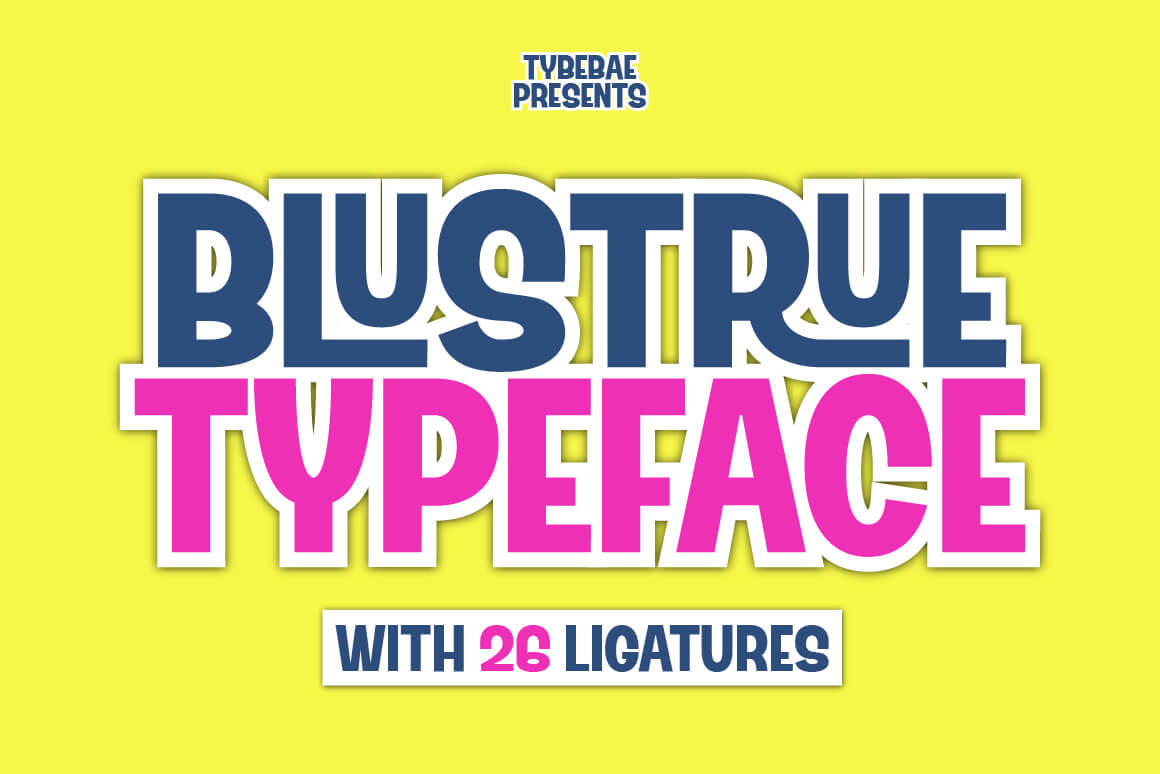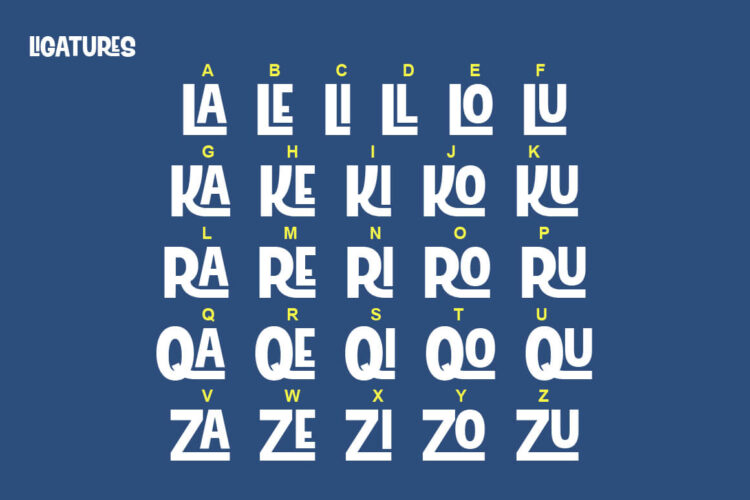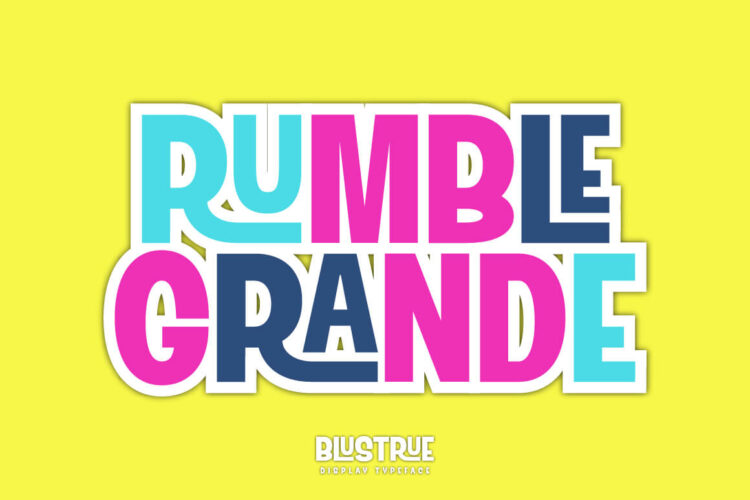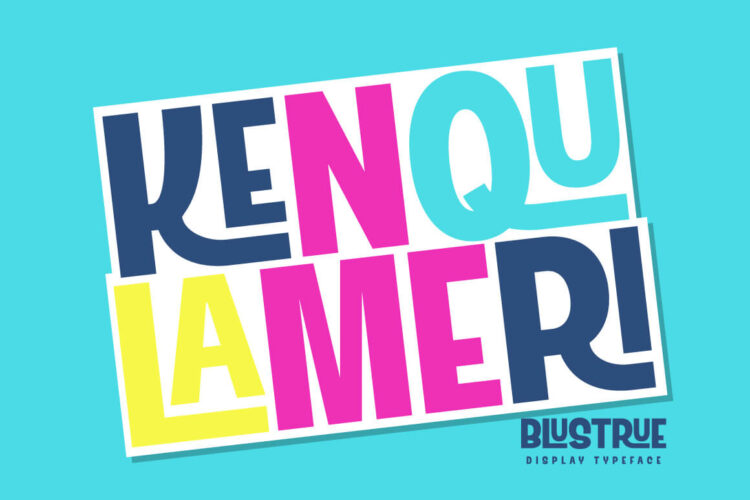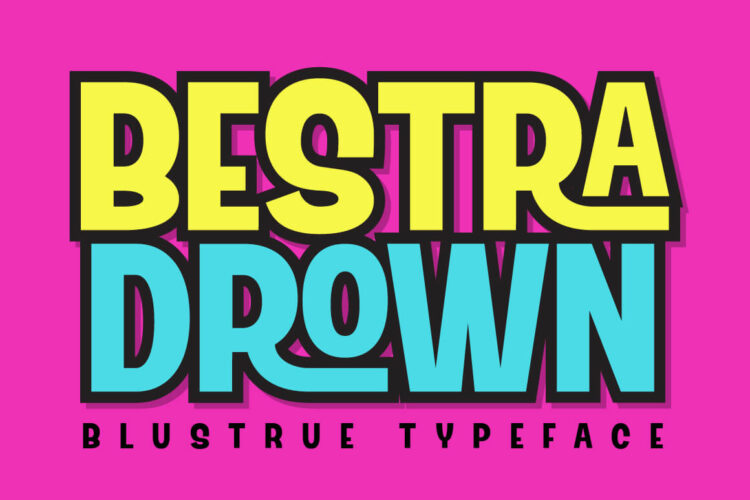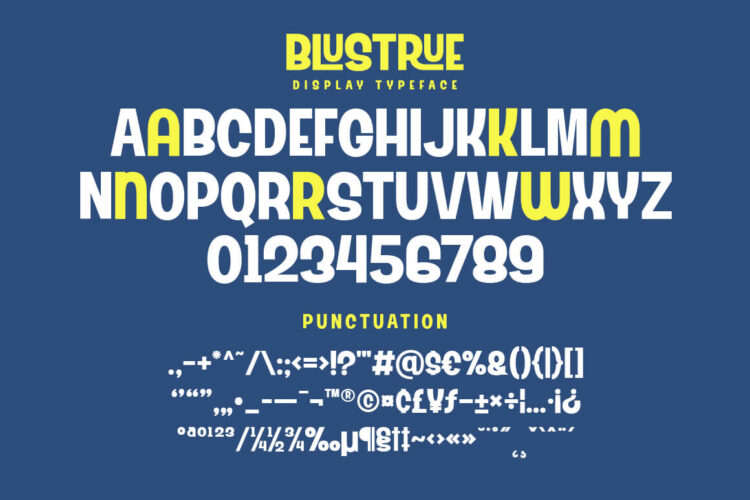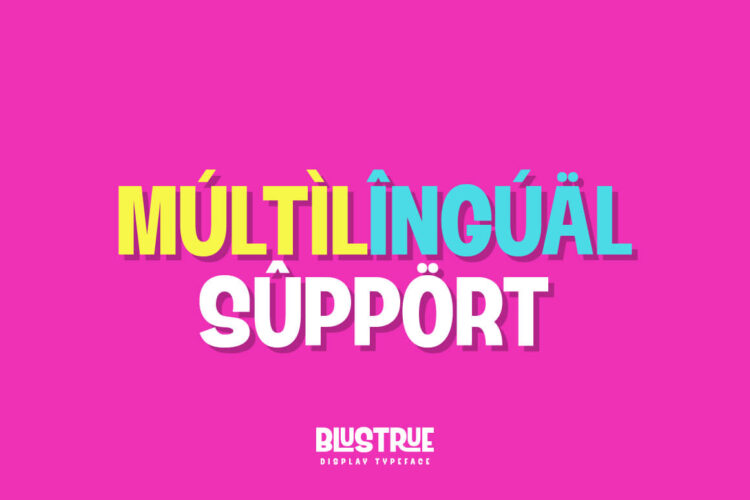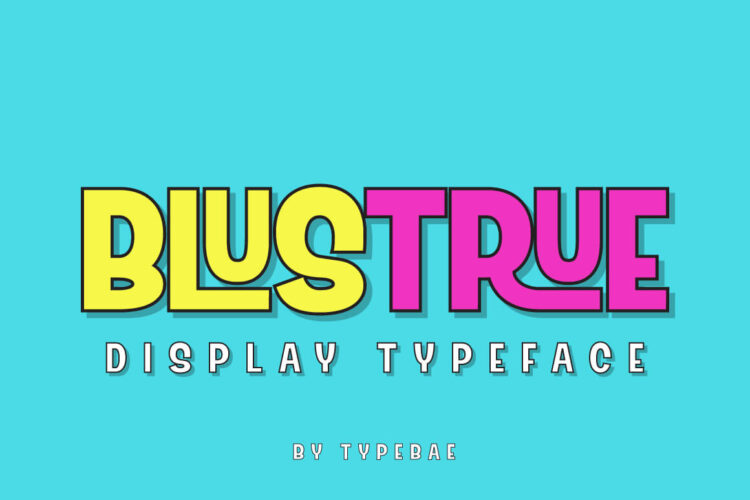
Blustrue is a display font with a vibrant comic style. Equipped with 26 ligatures, it offers a unique and enjoyable appearance. Blustrue Font would be the perfect addition to your font collection!
• Numbers & Punctuation
• 26 Ligatures
Blustrue – Fun Display Font